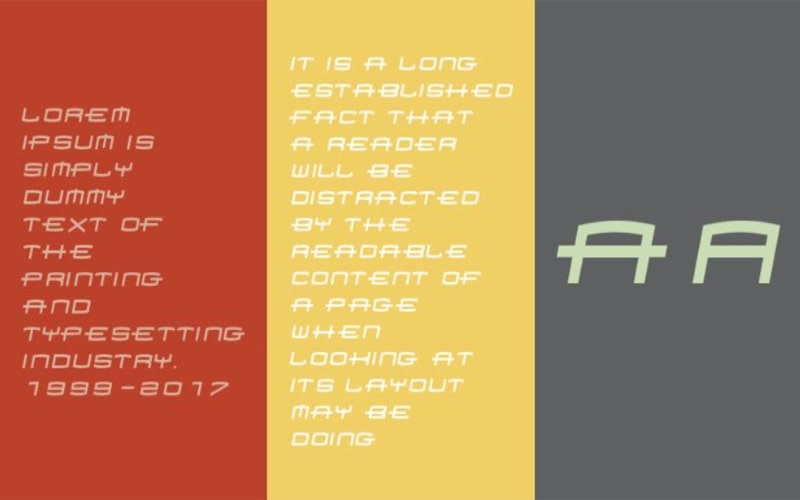
Homoarakhn font is a display typeface. This is a high-quality font based on the movie logos. Hmeneses holds all right reserved for this unique typeface.
The designer Hmeneses is from Mexico. It was published by Homoarakhn for the first time in 1979. After a few times, it was updated on Jan 2, 2021.
This astonishing free Homoarakhn typeface is based on the font that is used for spider man movies. The subfamily of this astonishing font is regular.
This beautiful and stunning font contains only one style such as the “Homoarakhn Regular” font style. You can use this versatile font for your different ongoing projects.
This amazing free version font provides all lowercase and uppercase letters, all caps, and a few special characters as well. Let’s have a single view of its unique texture.
Homoarakhn Font